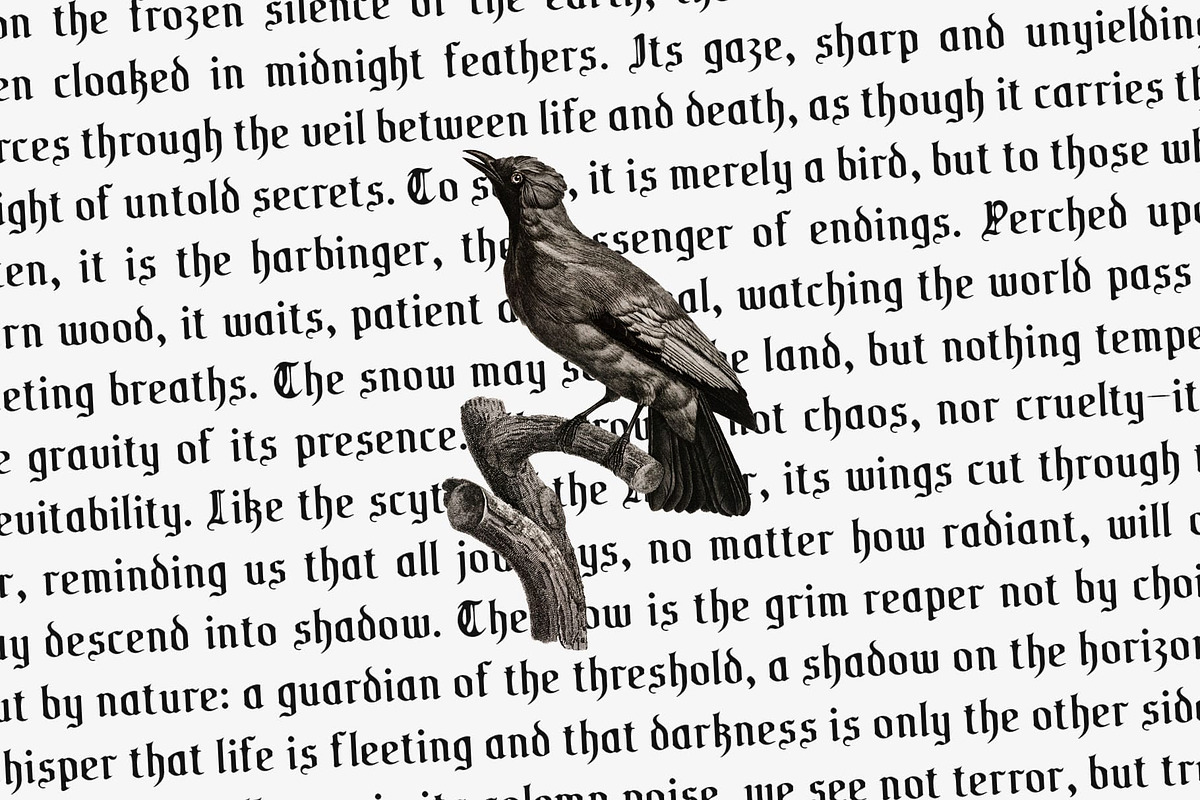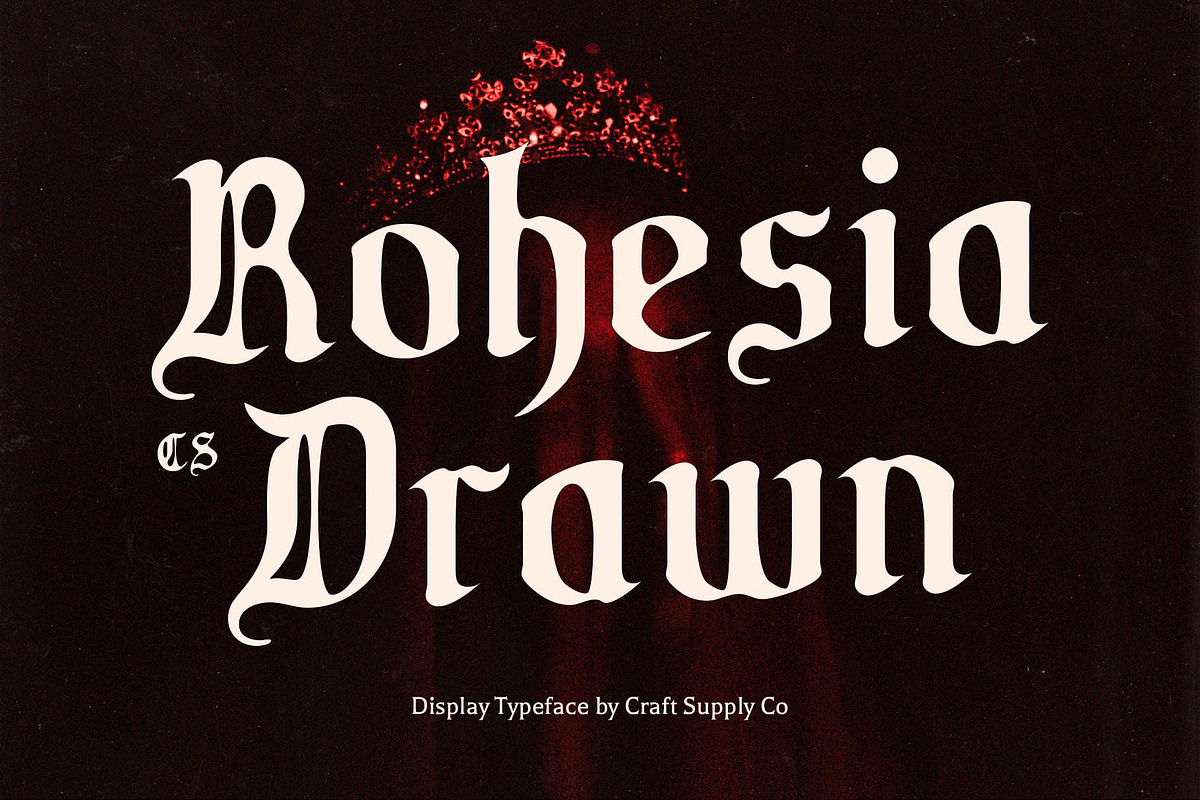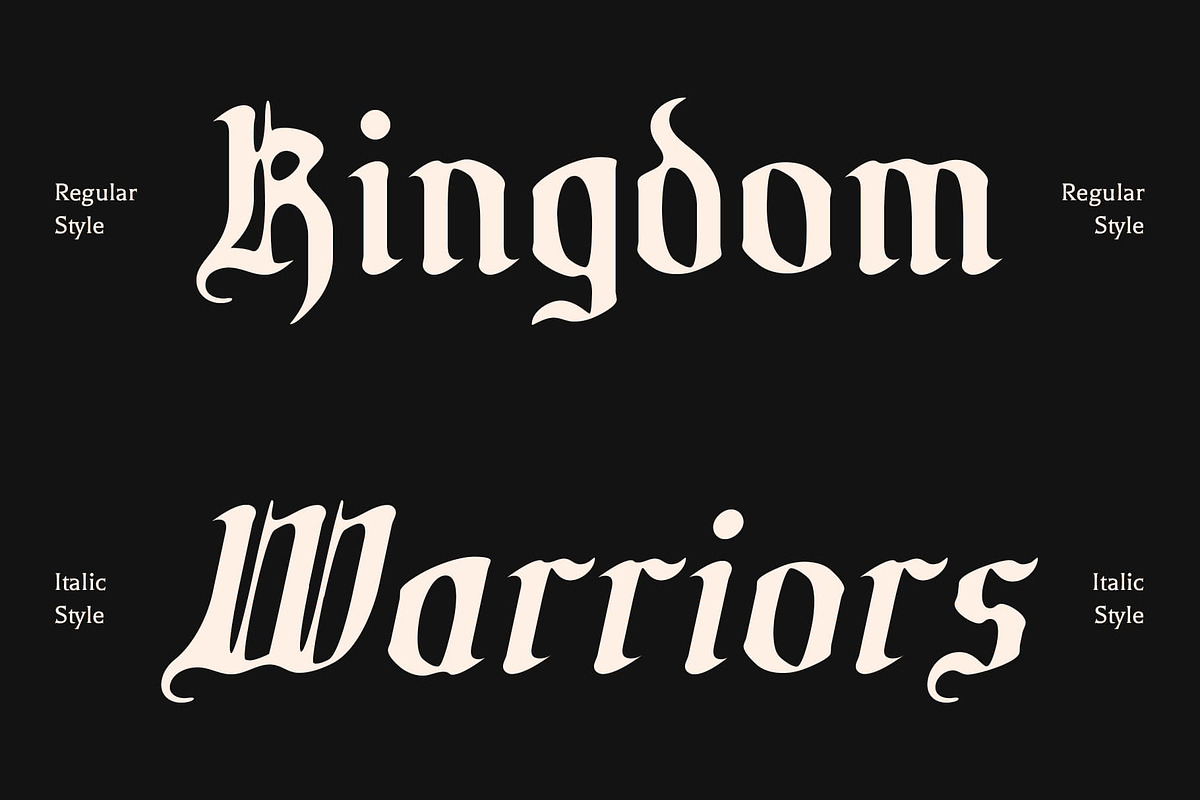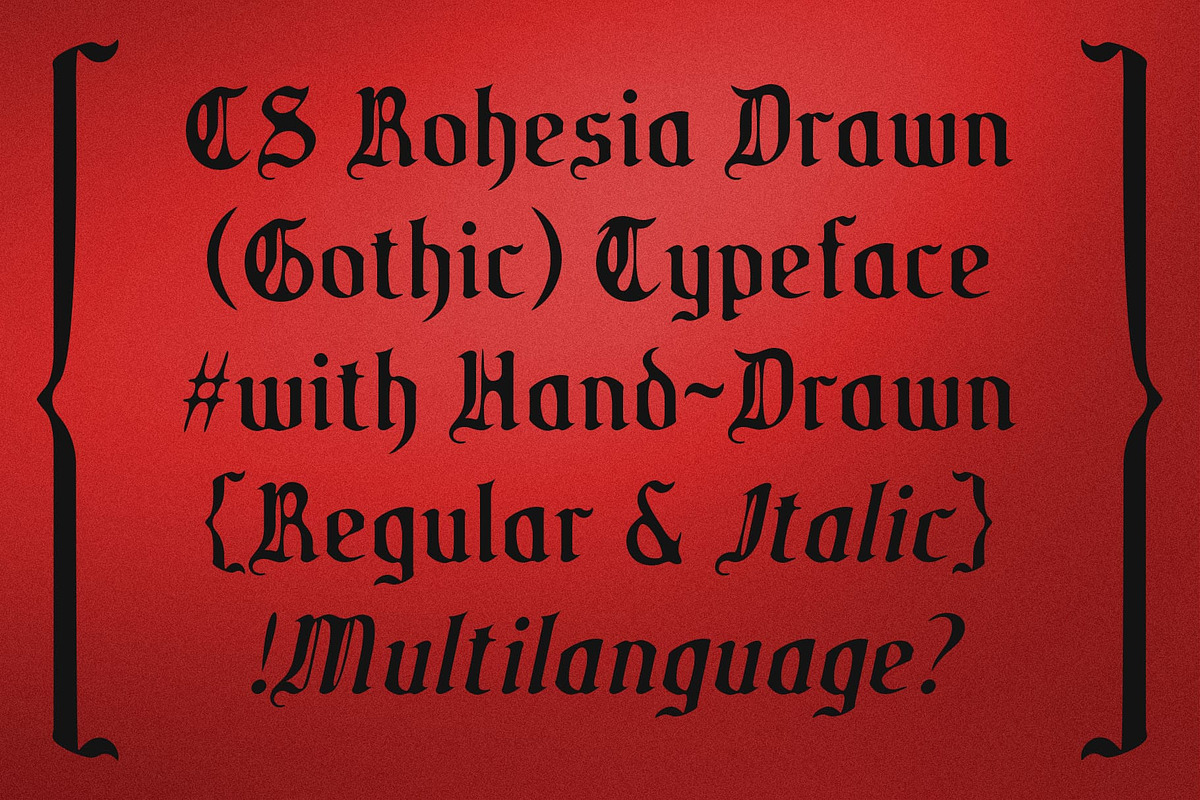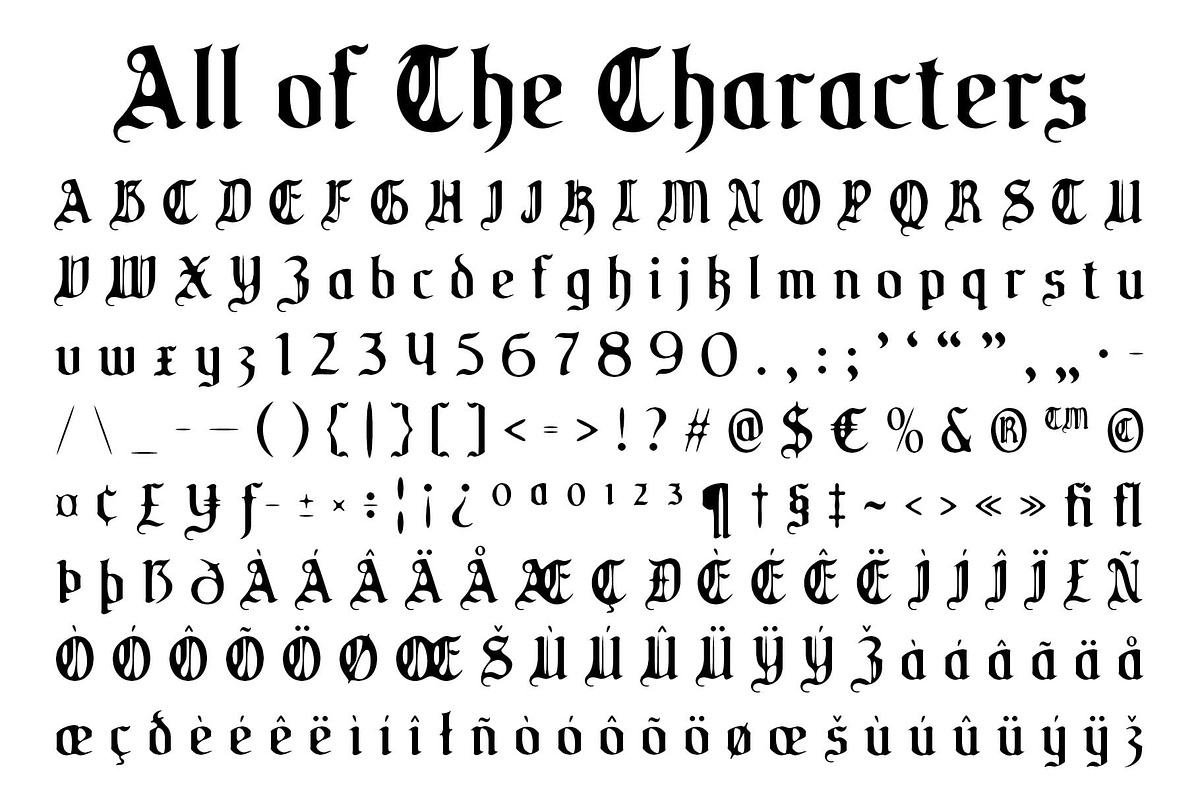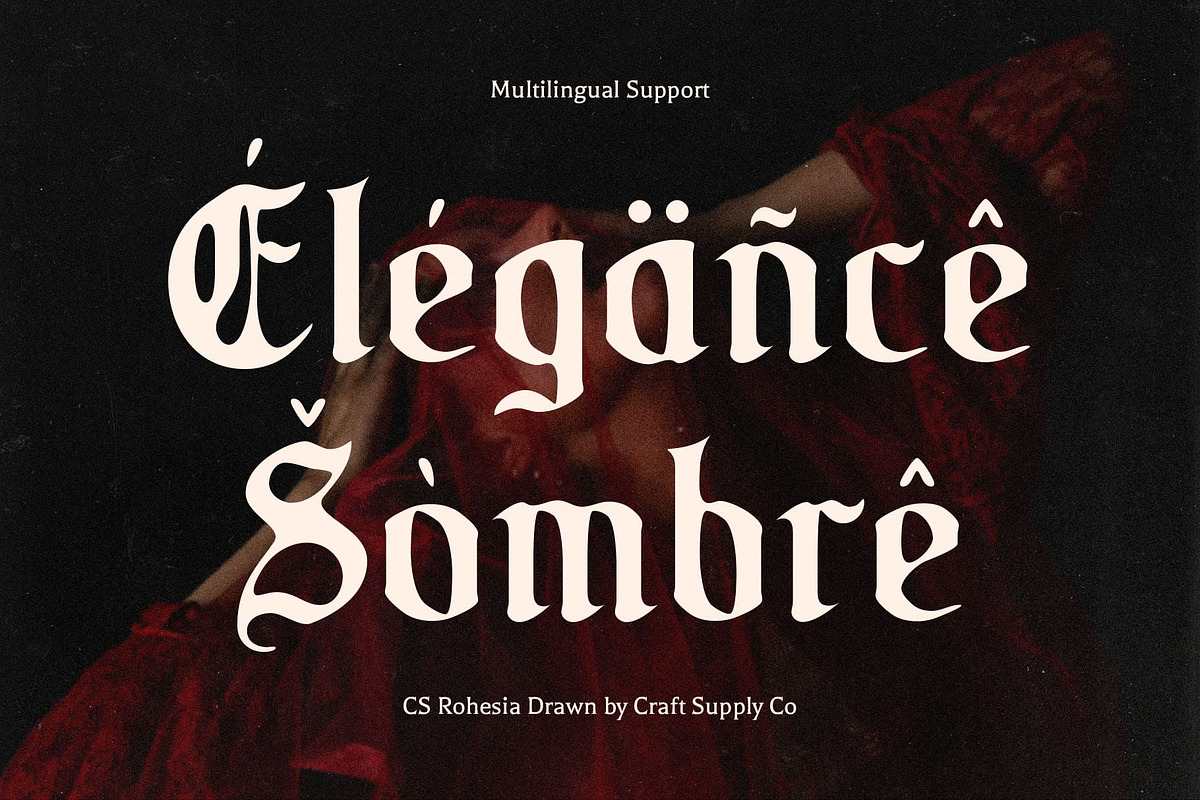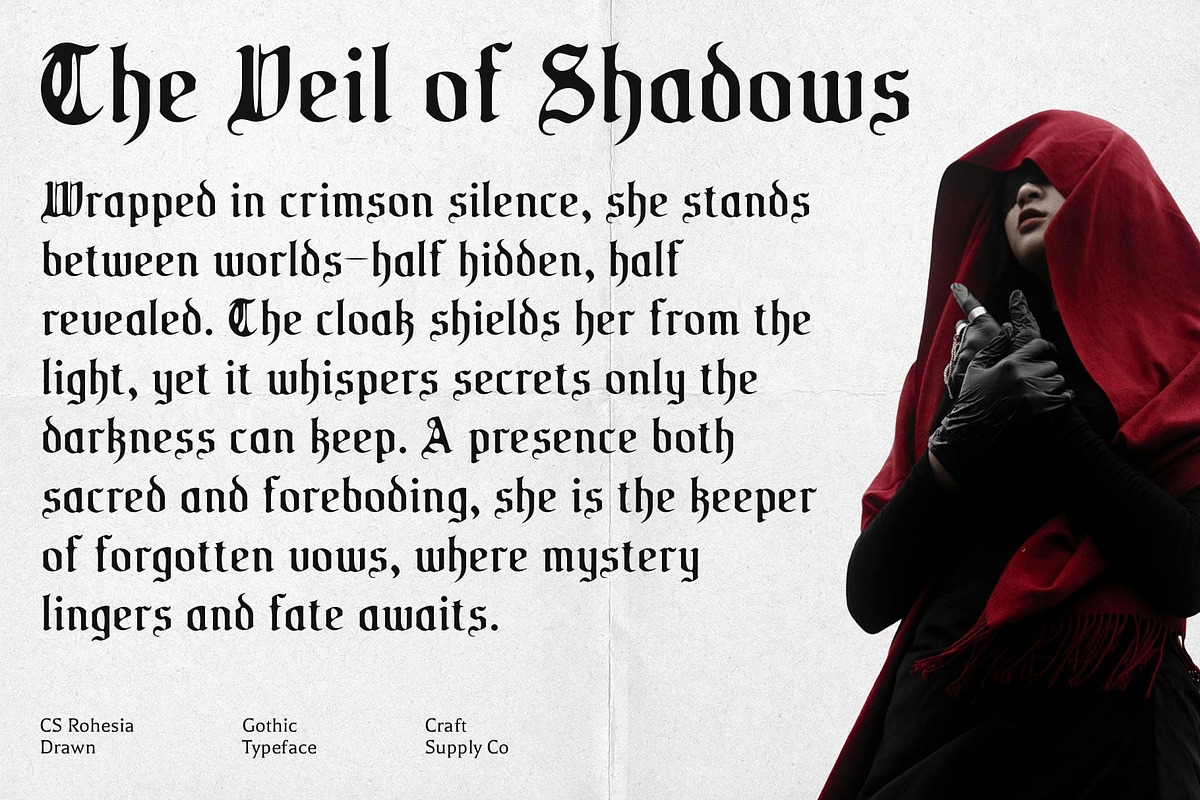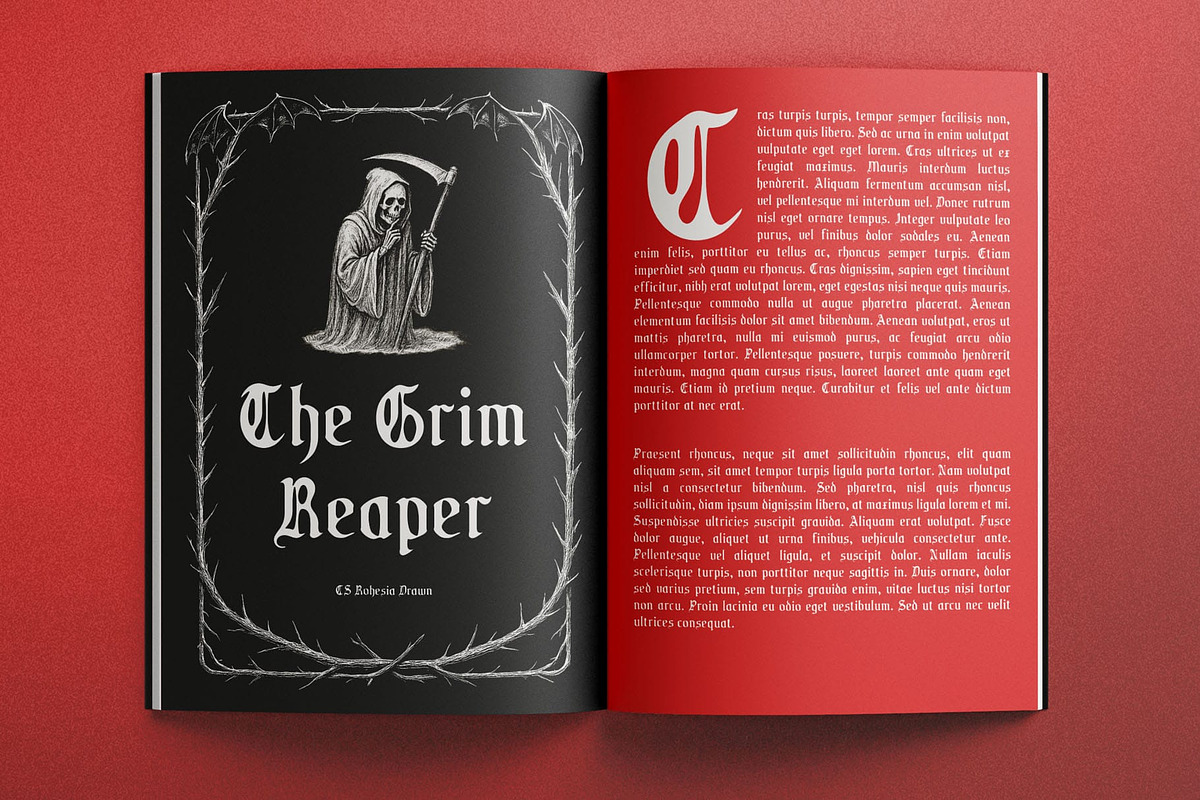
CS Rohesia Drawn
CS Rohesia Drawn: Gothic Display with Handmade Elegance
Display Font with Classic Gothic Style CS Rohesia Drawn is a display font featuring bold, elegant letterforms inspired by classic Gothic typography. Its sharp, decorative lines evoke sophistication, tradition, and a timeless sense of style, perfect for designs with a dramatic impact.
Handmade Drawn Texture for Artistic Character Enhanced with a drawn effect, each character gains a handcrafted texture that adds depth, uniqueness, and artistic flair. The manual detailing transforms traditional Gothic forms into a lively and expressive typeface.
Dramatic, Classic, and Characterful This artistic font combines the structured elegance of Gothic design with playful, handmade nuances. Its dramatic letterforms convey authority and sophistication while retaining a creative and artistic presence.
Ideal for Posters, Branding, Book Titles, and Creative Projects Perfect for projects that aim to communicate a classic, mysterious, or artistic vibe, this ornamental font is ideal for posters, branding, book titles, or other creative applications. Its blend of traditional Gothic shapes and handmade detailing ensures a distinctive, eye-catching result.
Elevate Designs with Gothic Artistry With bold Gothic proportions, intricate decorative lines, and subtle handcrafted texture, this atmospheric font delivers a typeface that combines timeless elegance with artistic expression. It’s a versatile choice for designers seeking a dramatic, classic, and visually compelling display font.